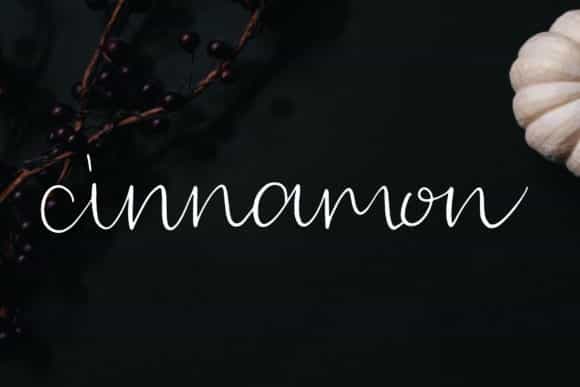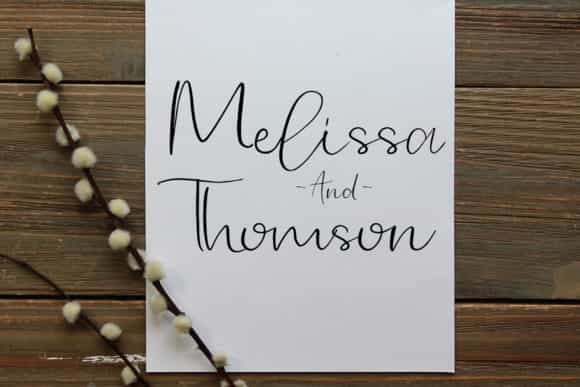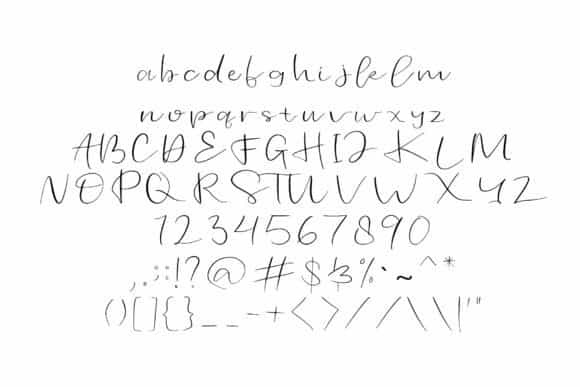
Present the Cinnamon Font, Hand Lettered Calligraphy Font which has a marvelous wave and natural flow. The font has a distinctive letter, which is hand-drawn and natural-like. It also has a softer and smoother character where all the letters are finely connected.